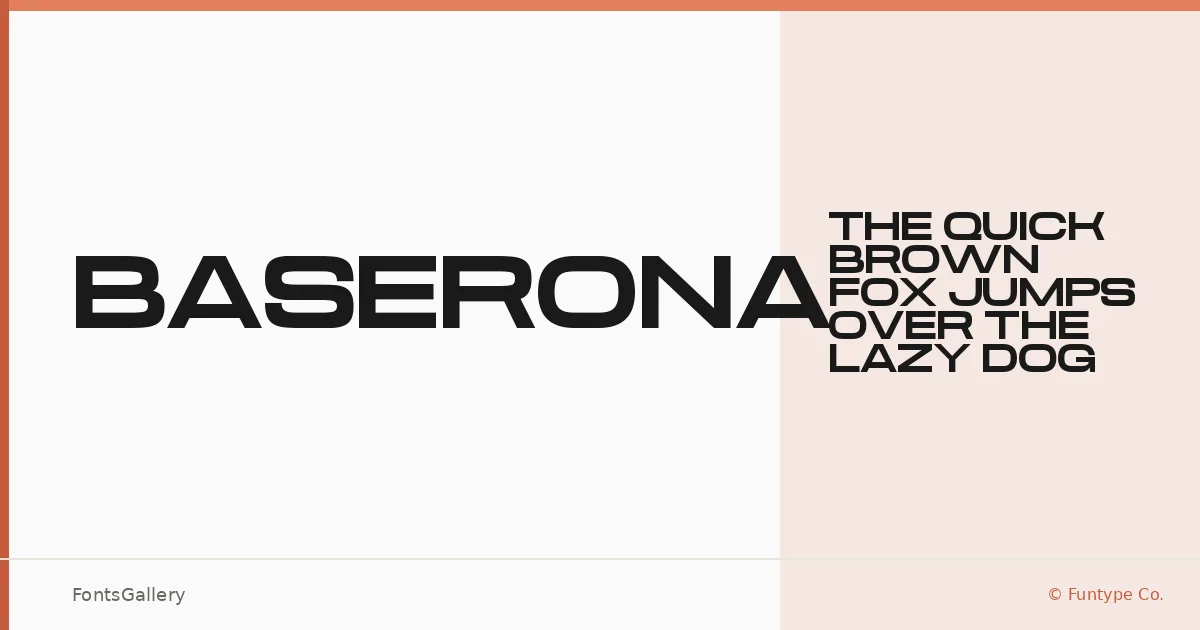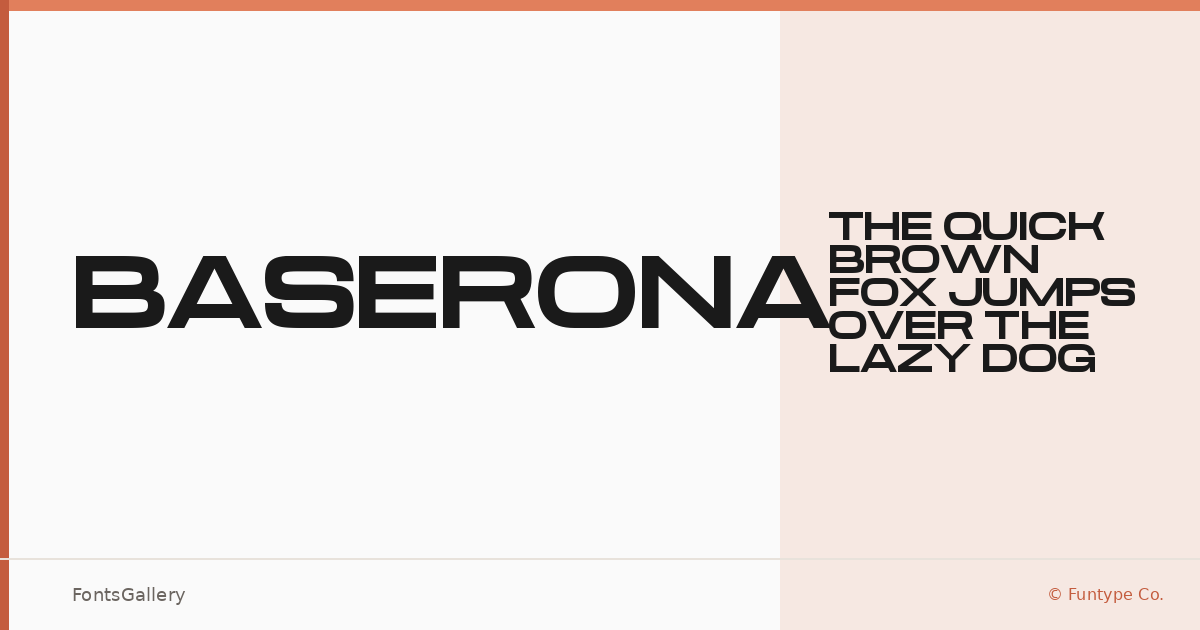
About Baserona Font
There is a clean, confident economy to these letterforms — the kind of sans serif that holds its ground at display sizes without shouting. Baserona is the work of Funtype Co., built around a minimal, modern sensibility that reads as deliberate rather than sparse.
This is a single-weight sans serif — Regular — delivered as a TTF file with Latin coverage. Its character sits somewhere between the professional restraint you expect from a corporate face and the bold, direct presence that makes a headline land. The forms are stripped back: no decorative friction, just geometry doing its job. That minimalism gives it a modern, poster-ready edge without sacrificing legibility at larger settings.
It earns its keep in branding, logo work, advertising, and poster design — anywhere a headline needs authority without ornamentation. The Latin character set keeps it focused on Western European contexts. For pairing, the family sits well alongside Aresink, Ballmain, 321 Impact, Bizantheum, and Batoshi, each offering enough contrast in texture or weight to create clear typographic hierarchy.